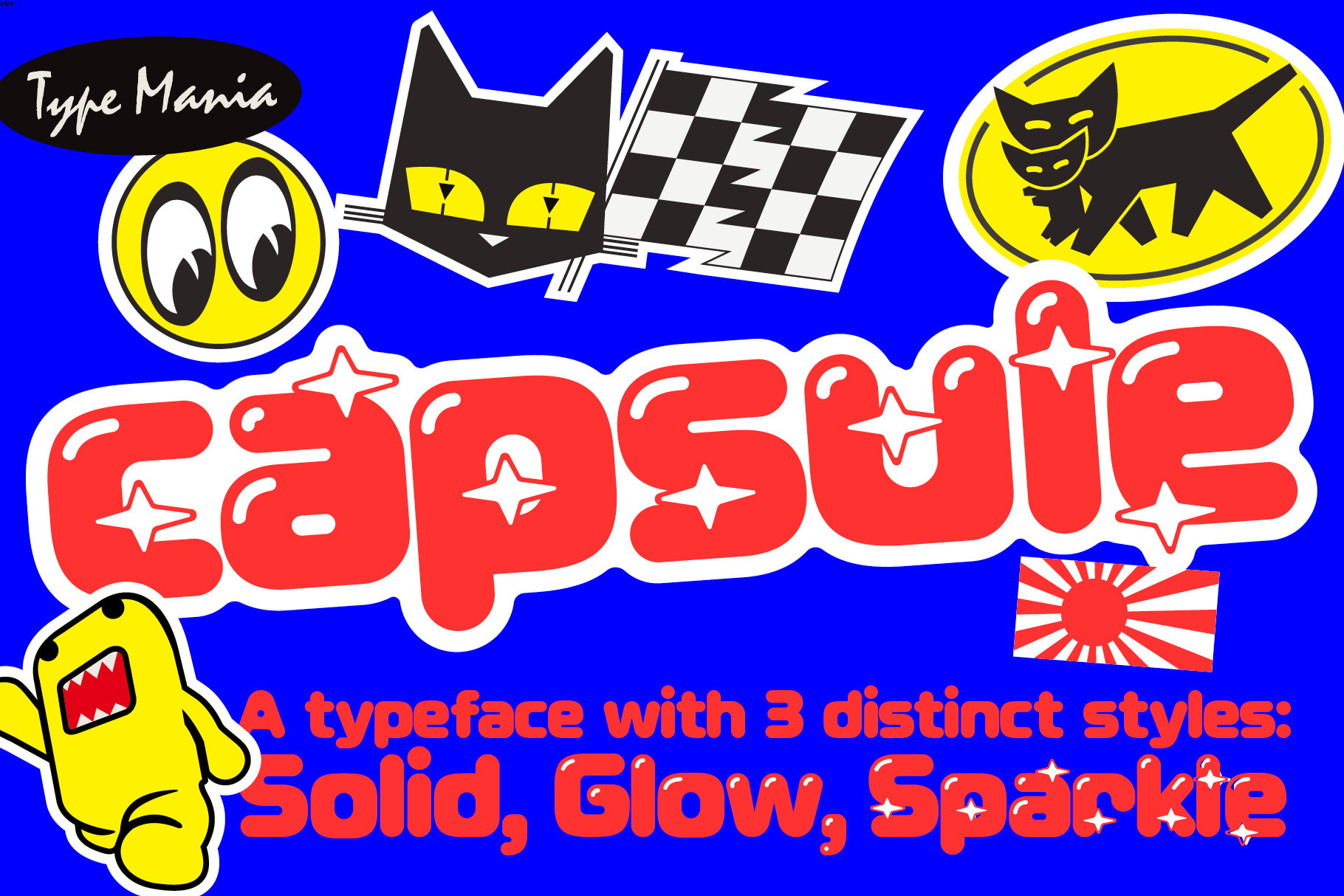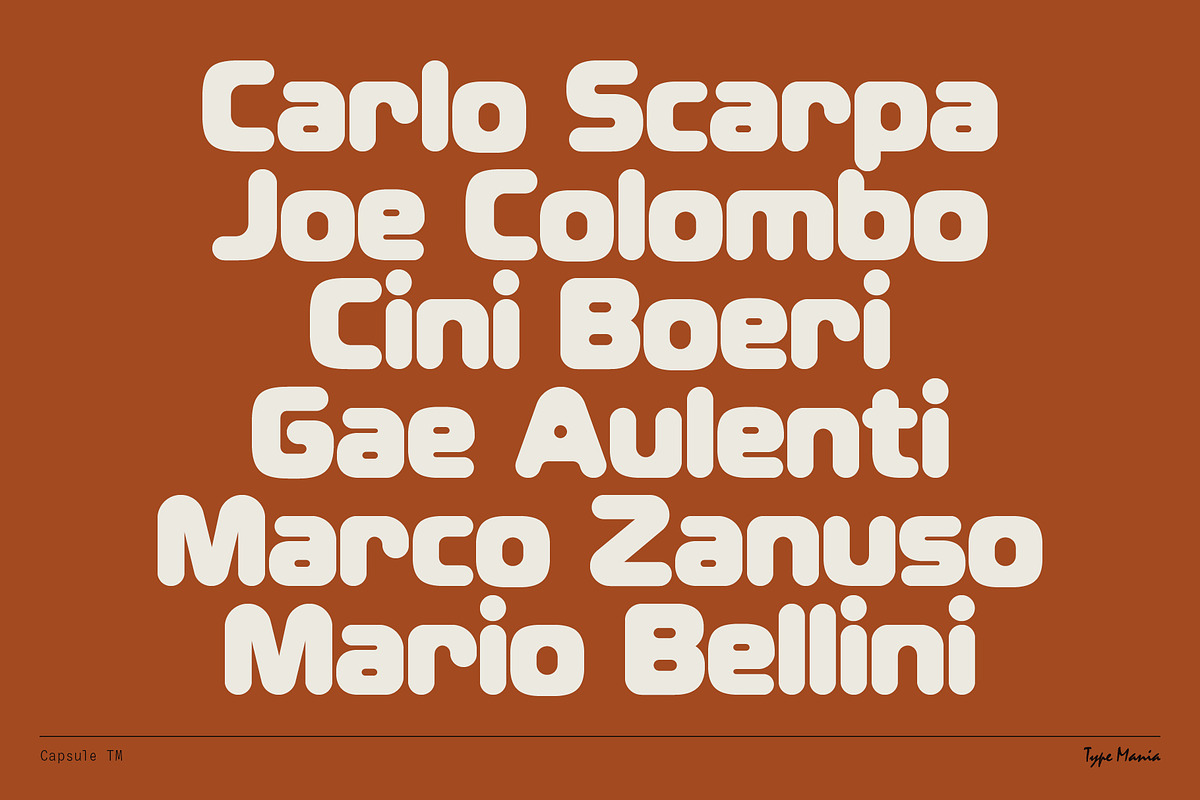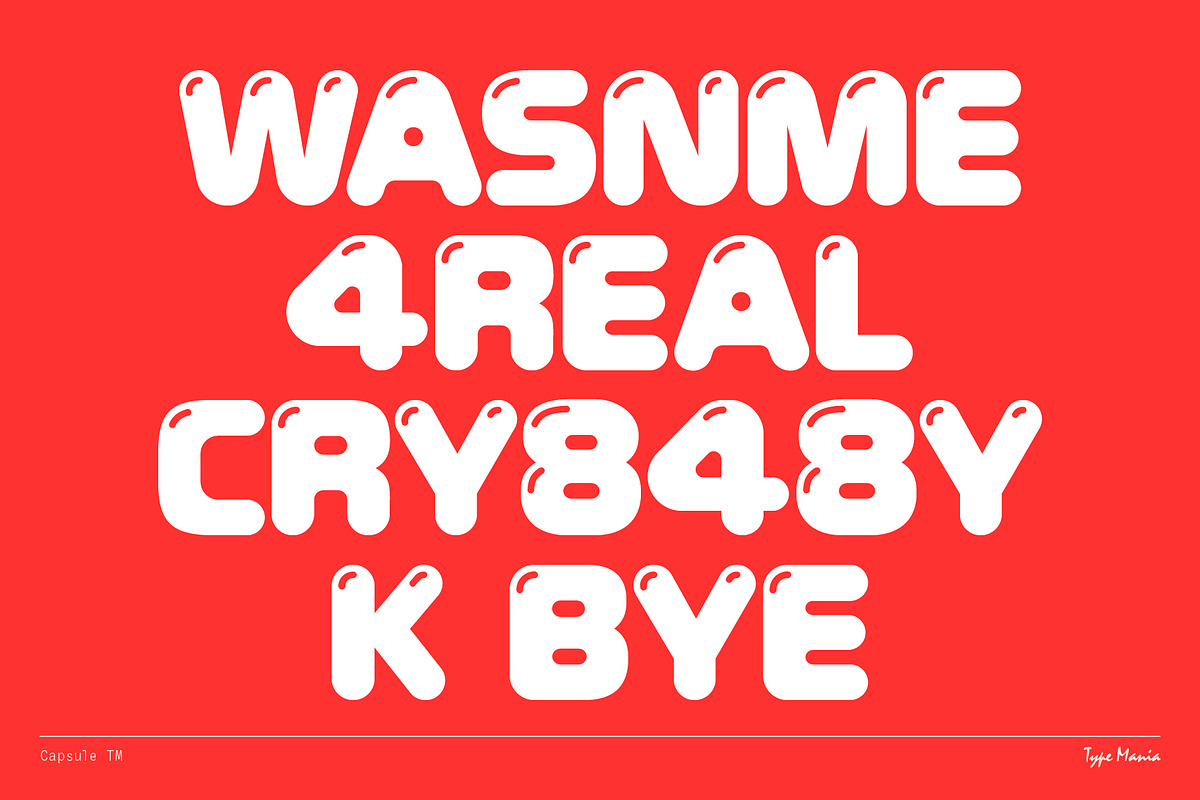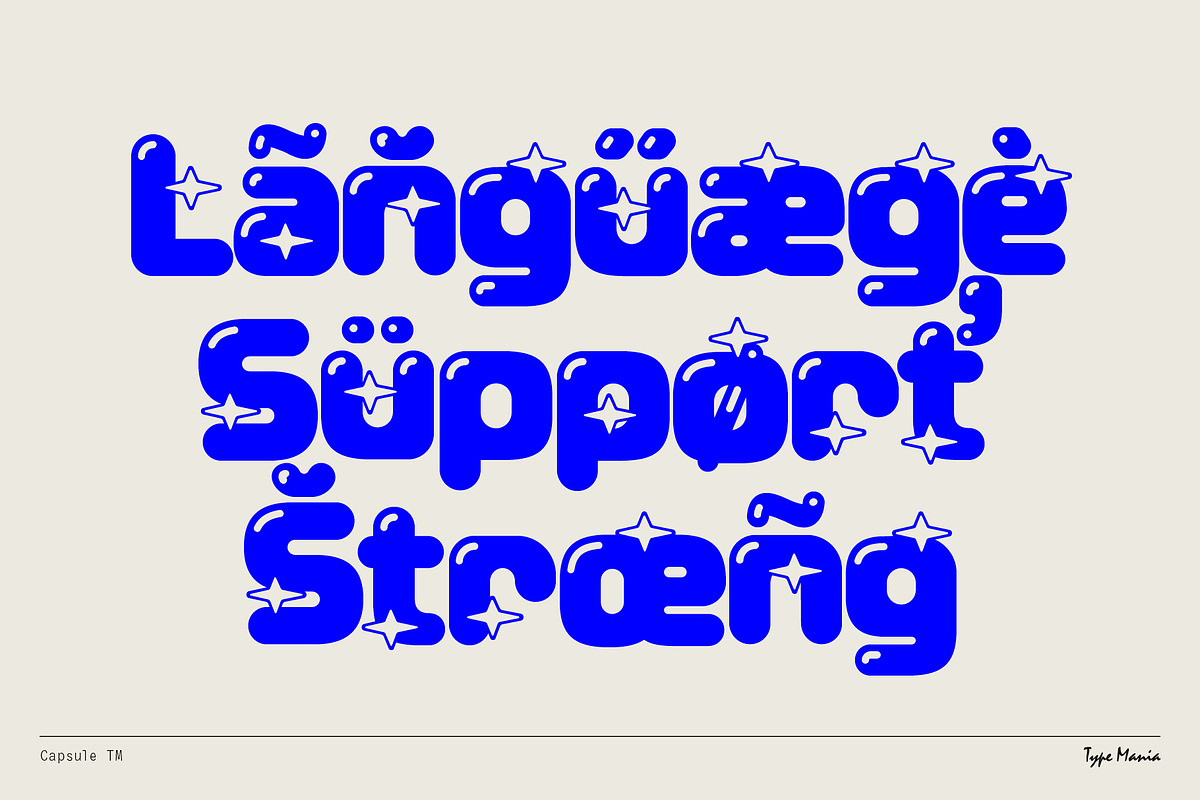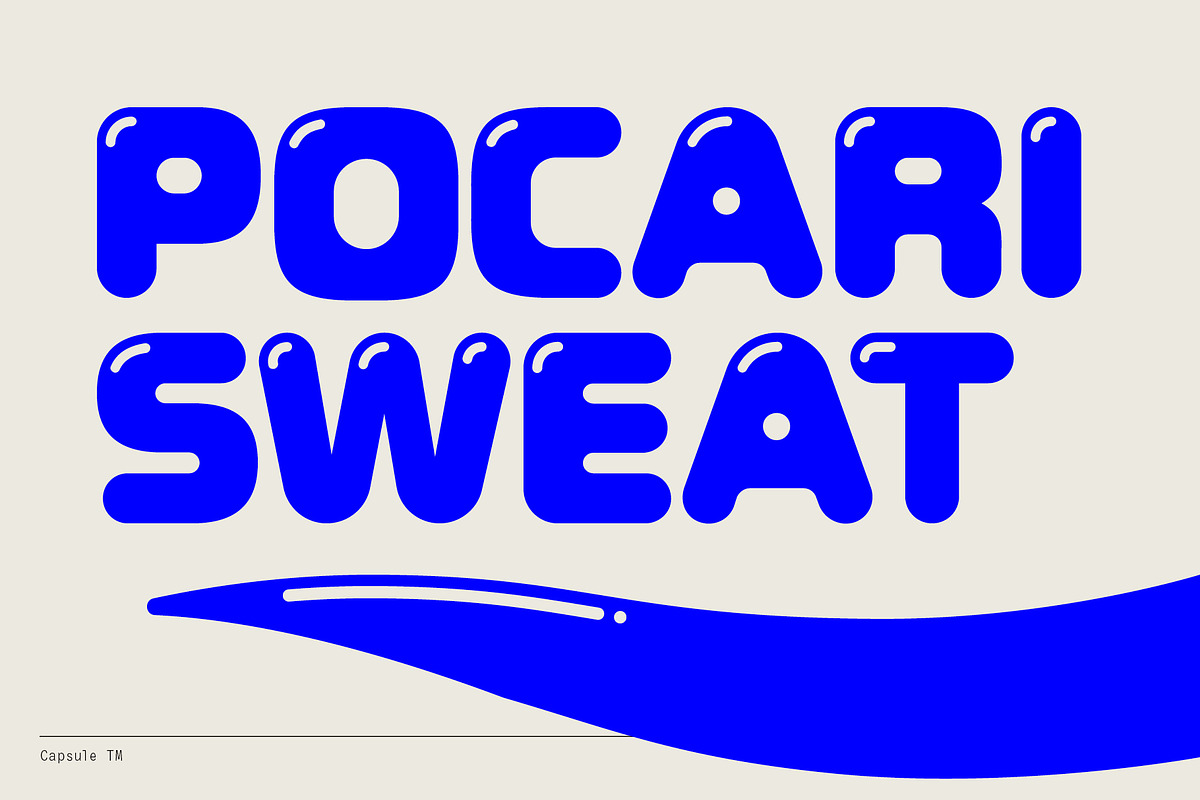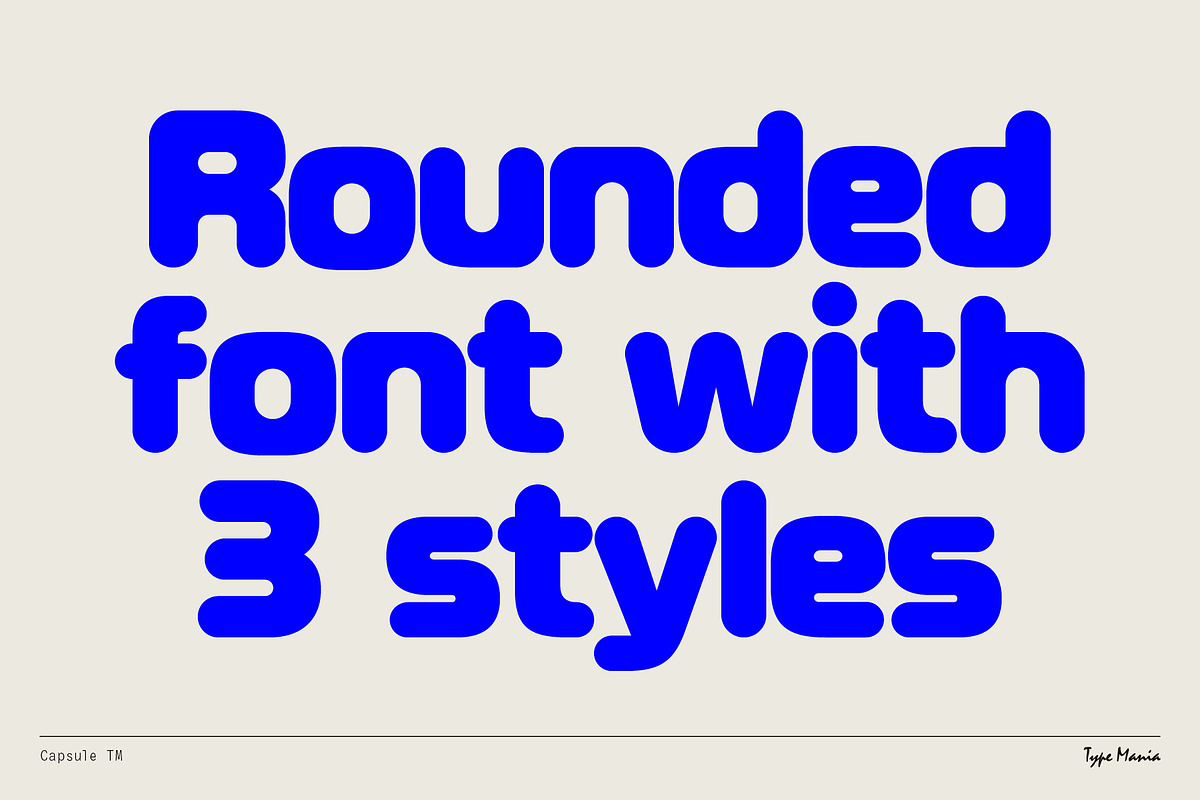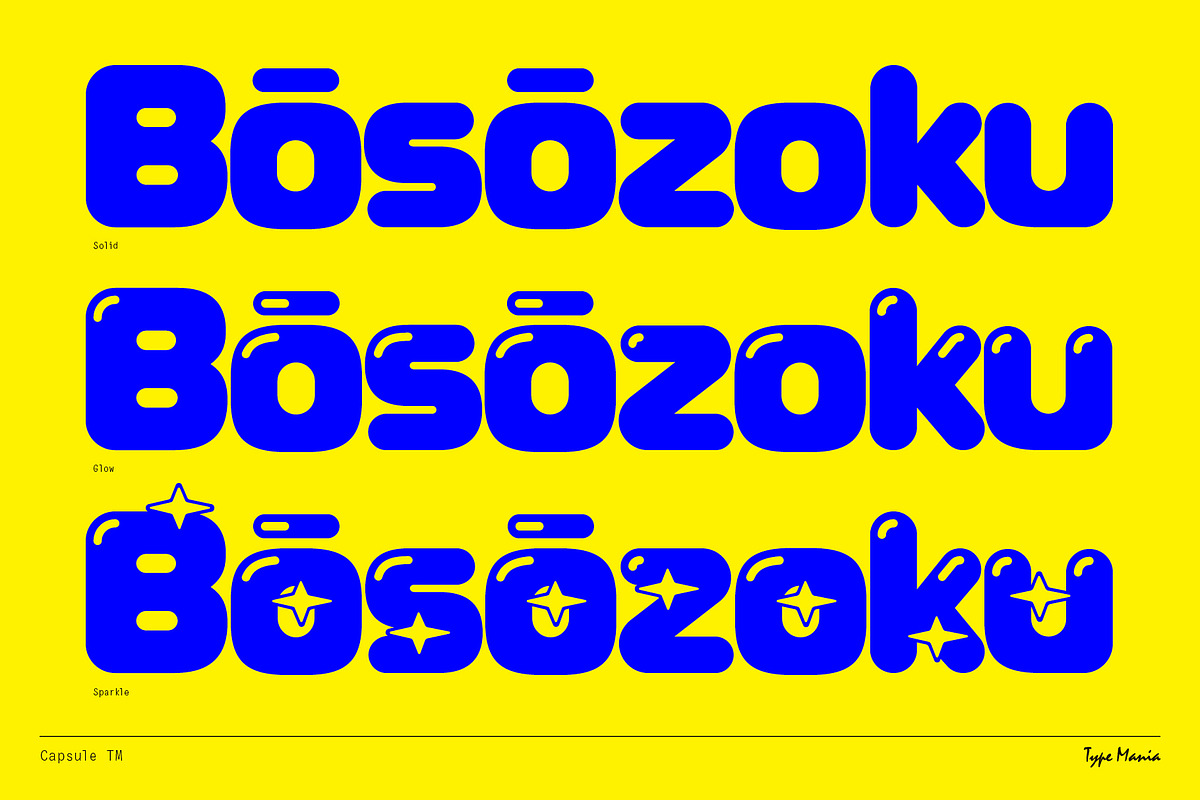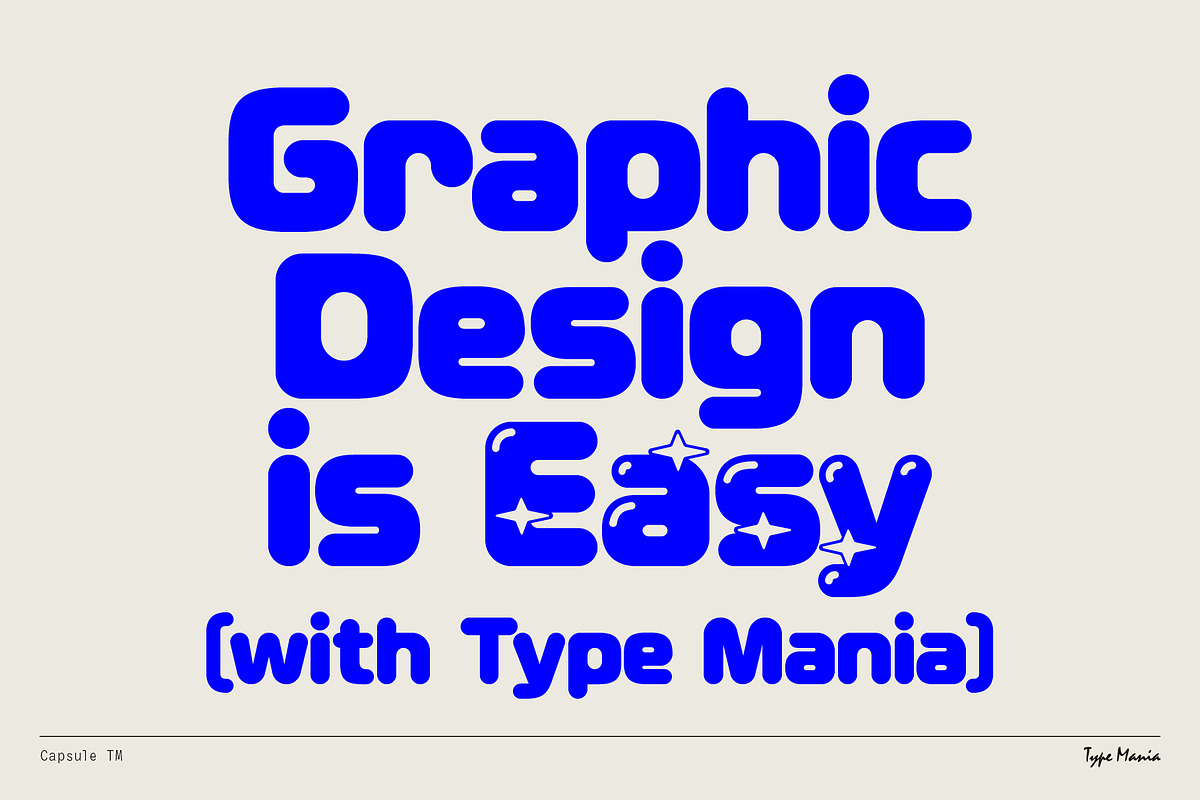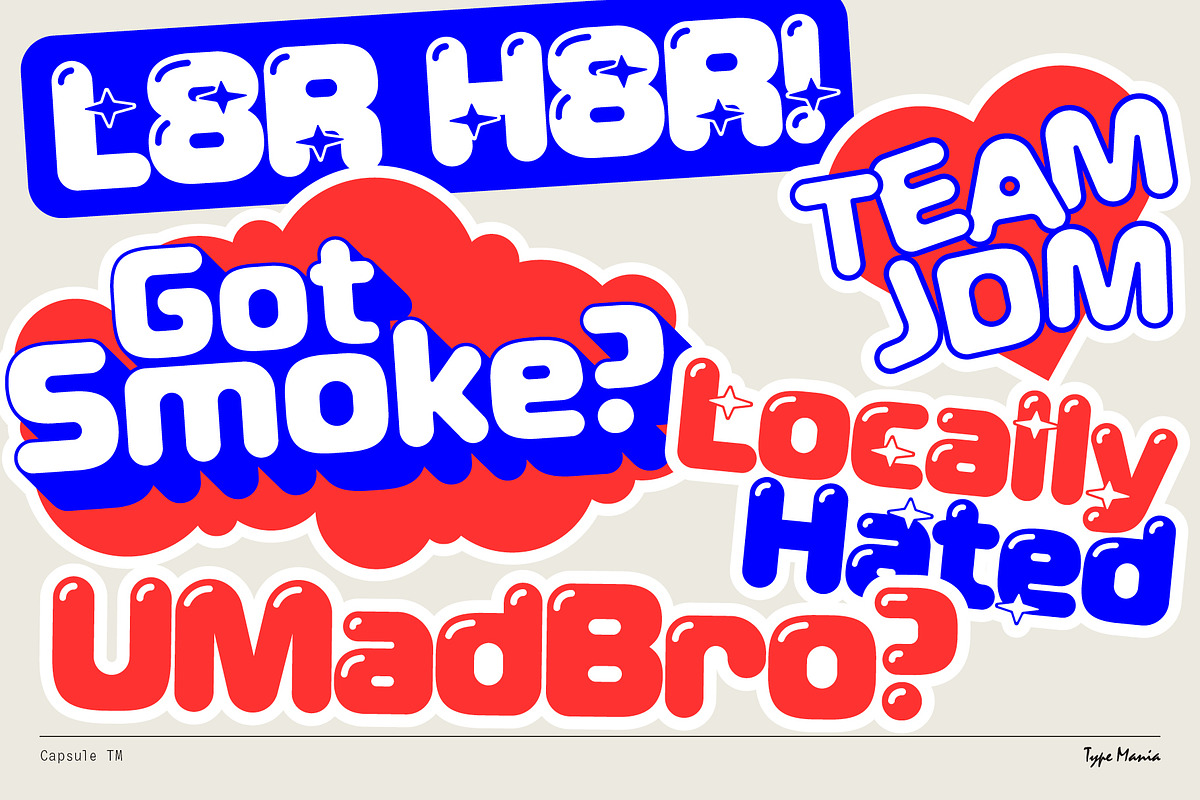
Capsule TM – Soft Modular Font
Capsule TM is a rounded display typeface built like a Camaleonda sofa. Equally at home on JDM stickers and in Italian modernist archives. See if it works for your project 🏎️💨
Includes three styles: Solid, Glow, ✨Sparkle✨